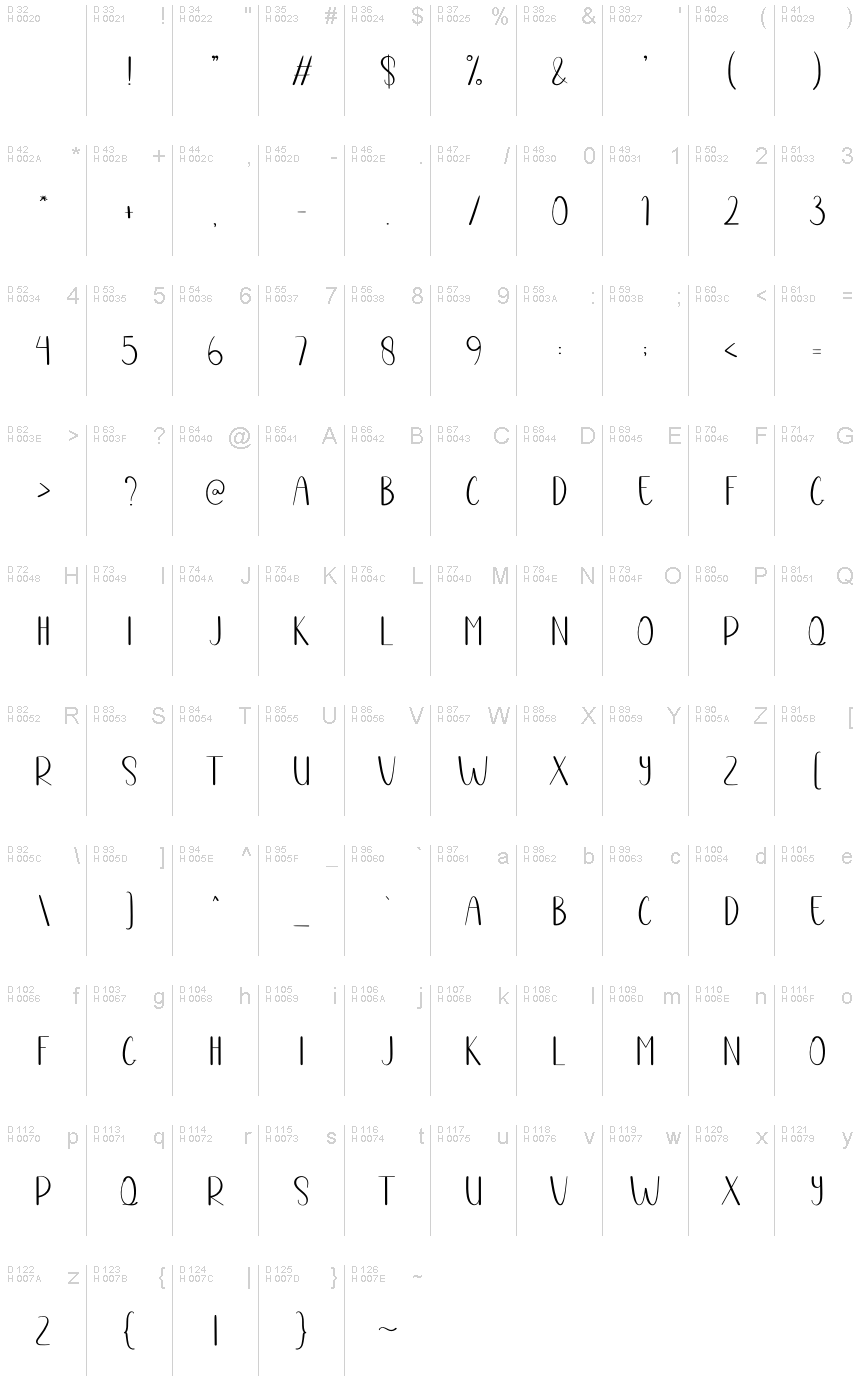
Singing Clown
Singing Clown is a whimsical, handwritten font that exudes a delightful playfulness. Crafted by designer Andi Moz, its light, condensed strokes evoke a sense of childlike wonder and imagination. The unconventional letterforms, with their slight variations and quirky flourishes, lend this font a charming, organic quality that is perfect for a range of design applications.
From playful branding and children's book illustrations to festive event materials and packaging, Singing Clown's distinctive style can add a touch of fun and personality to a wide variety of projects. Its versatility makes it a valuable asset for designers seeking to inject a dose of playfulness and creativity into their work.